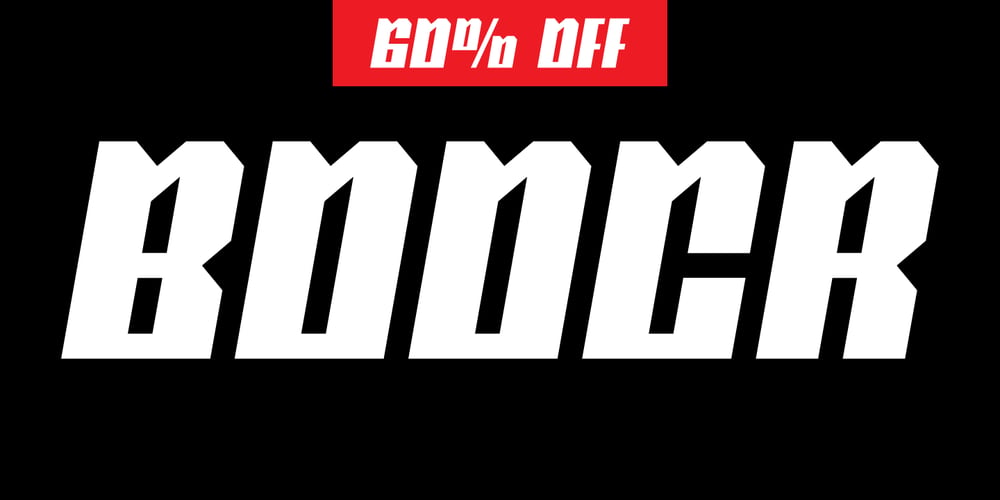
Boocr Font Family was designed by Abhishek Junghare and published by OneSevenPointFive. Boocr contains 6 styles and family package options. Boocr, a display family crafted for company logos, game/book/movie titles, landing pages, branding, posters, banners, packaging, etc. Designed with powerful open-type features – 11 stylist sets, ligatures, numerators-denominators, fractions and so on. Whether it’s for dominating, subtle or even playful headlines, Boocr is amazingly suitable for all.Give feedback – https://bit.ly/3FlmhDS